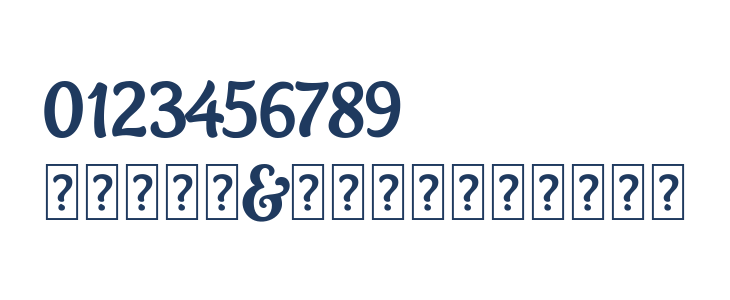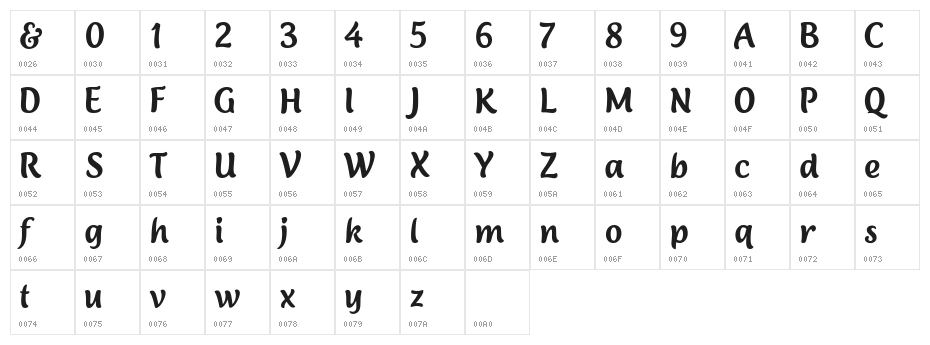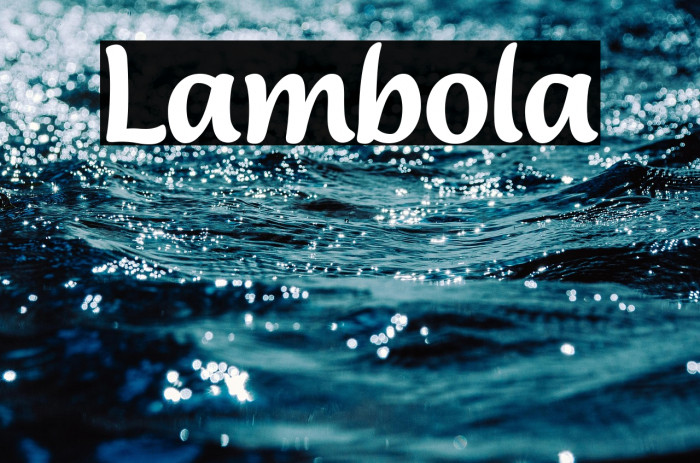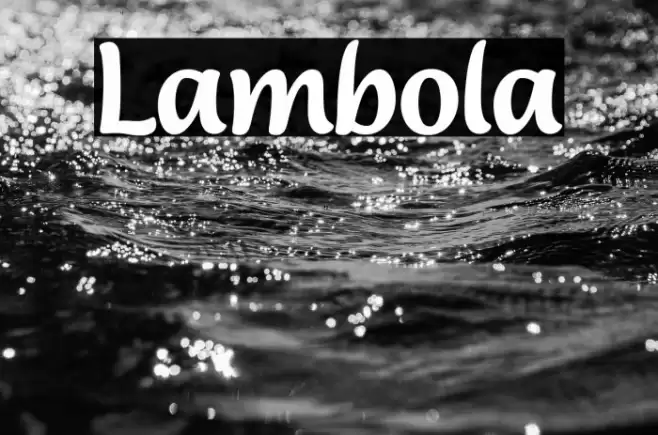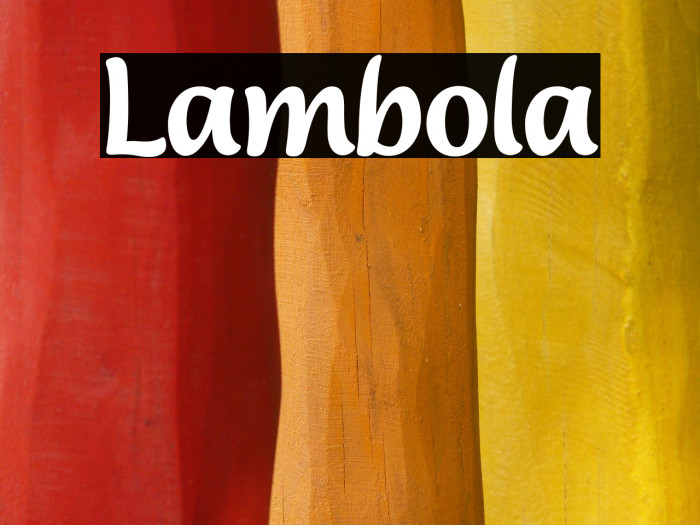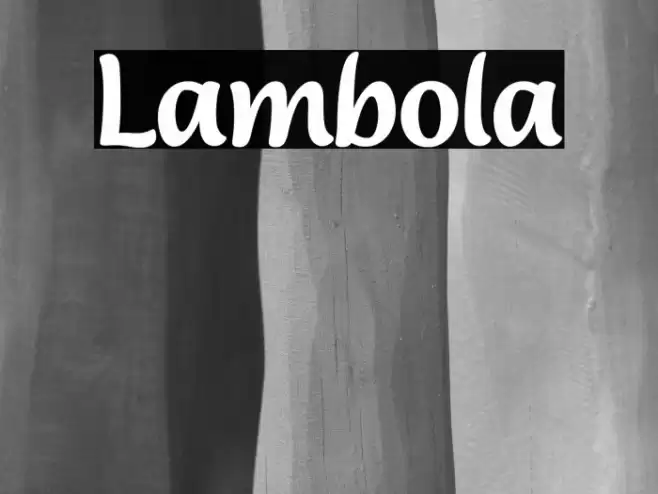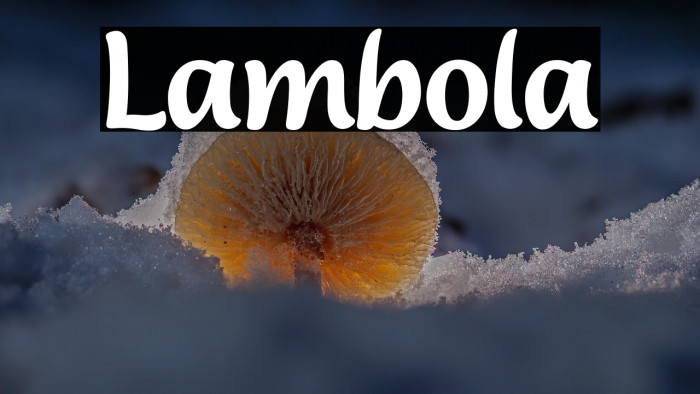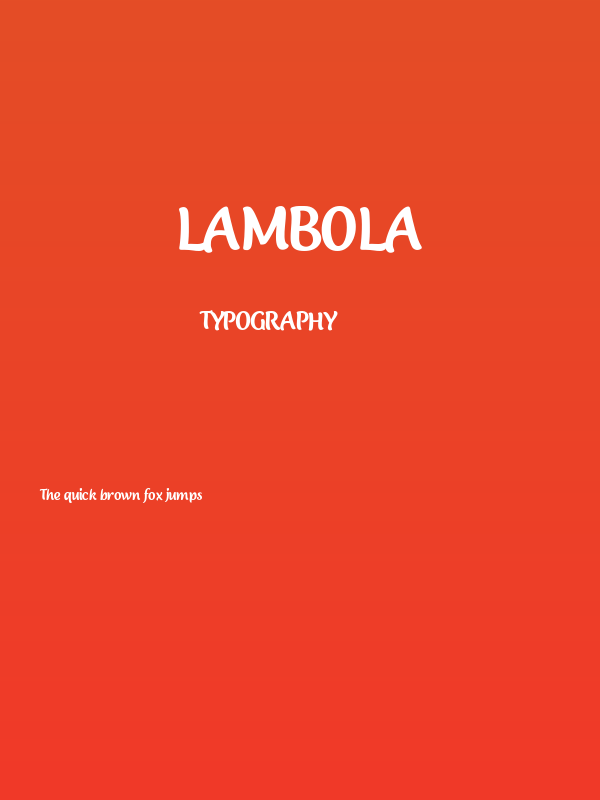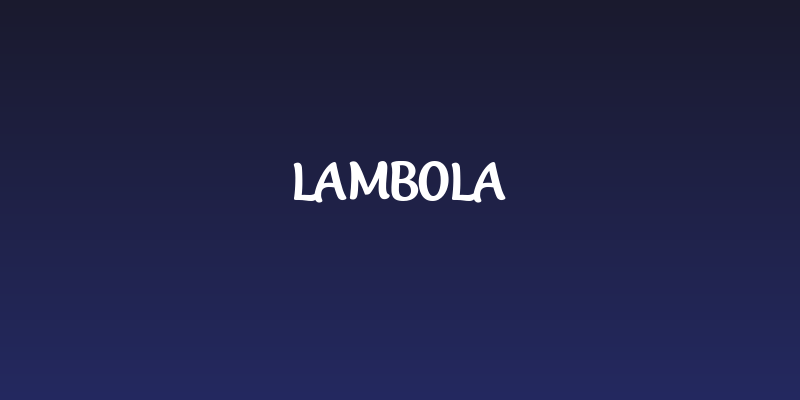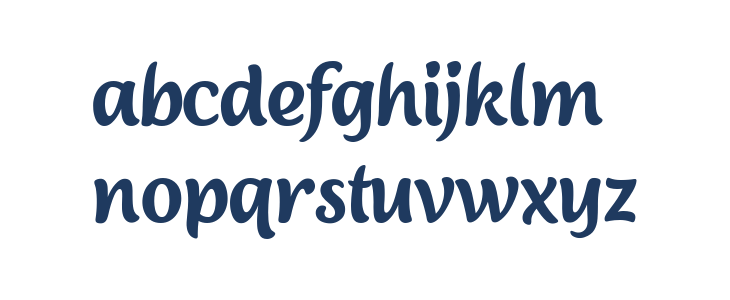
Lambola Font
Lambola Description
This font features a playful and whimsical style, characterized by its smooth, flowing curves and slightly exaggerated strokes. The letters exhibit a hand-drawn quality, giving it a friendly and approachable appearance. The uppercase letters maintain a consistent height, while the lowercase letters have a slightly varied baseline, adding to the casual feel. The numerals are rounded and complement the overall style, ensuring readability. The ampersand is particularly distinctive, with its looped and flowing design. This font is versatile, suitable for projects that require a touch of personality and charm.
| Proposed Projects | Ideal for children's books, greeting cards, playful branding, and creative posters. |